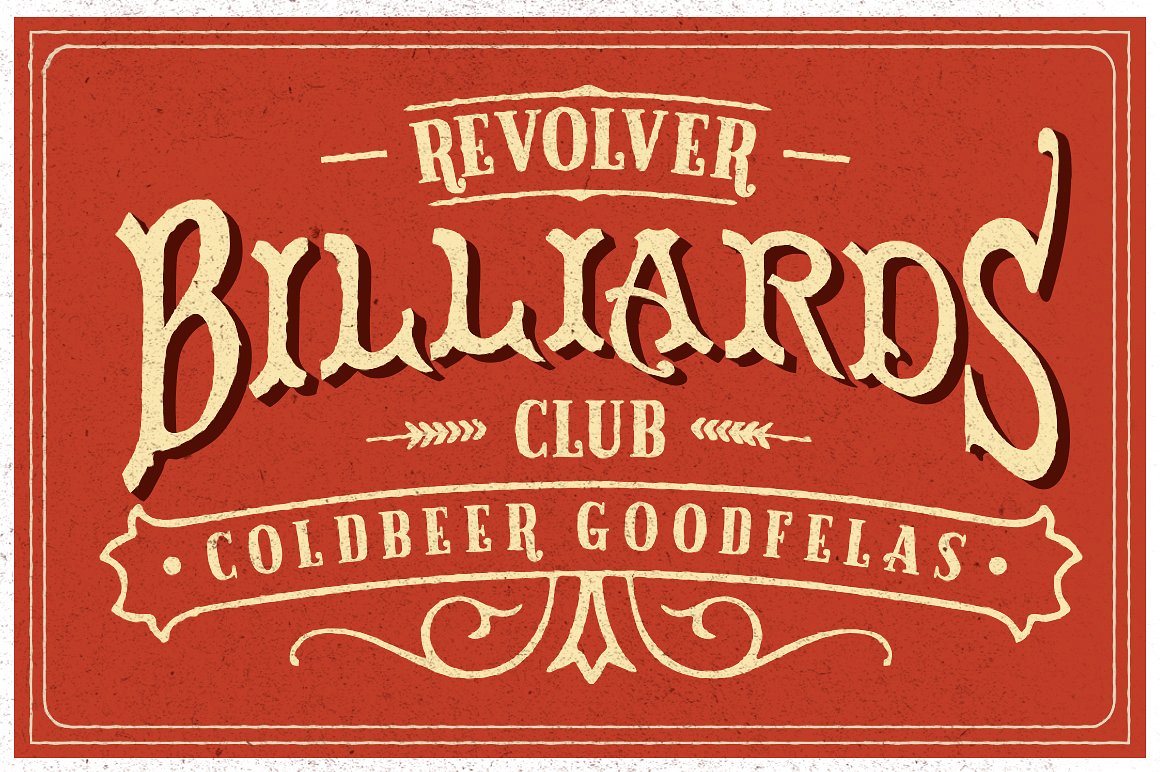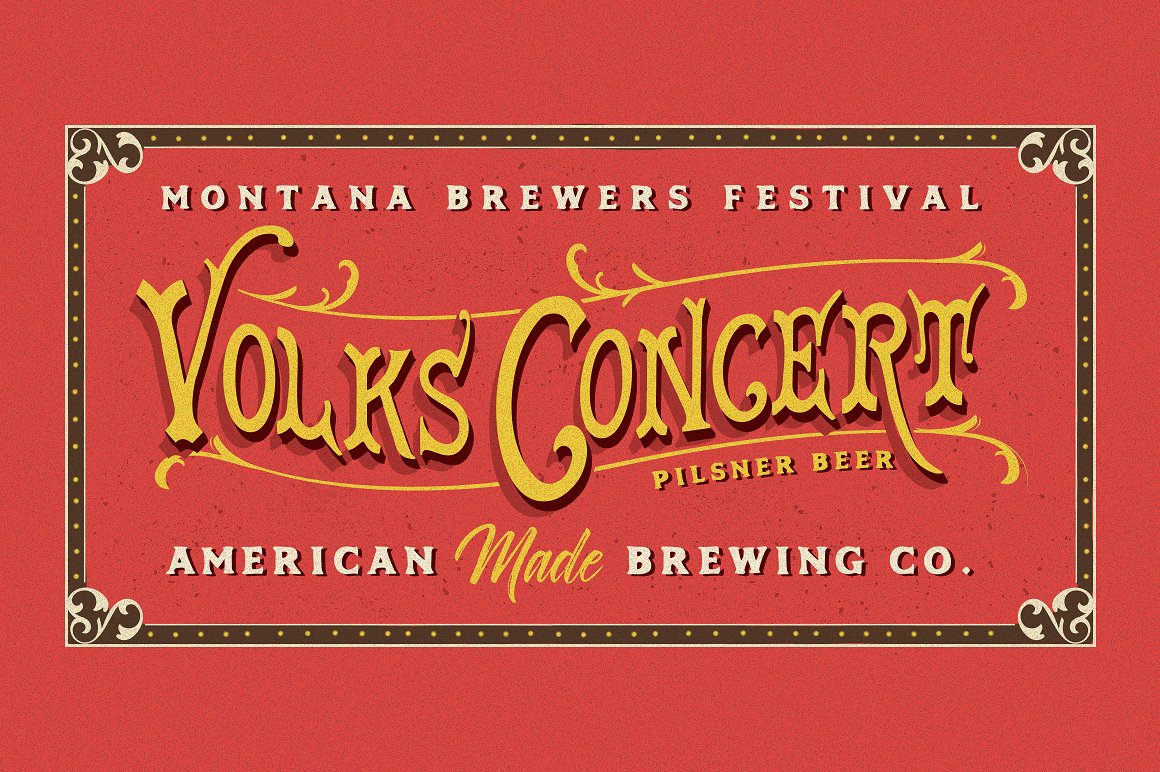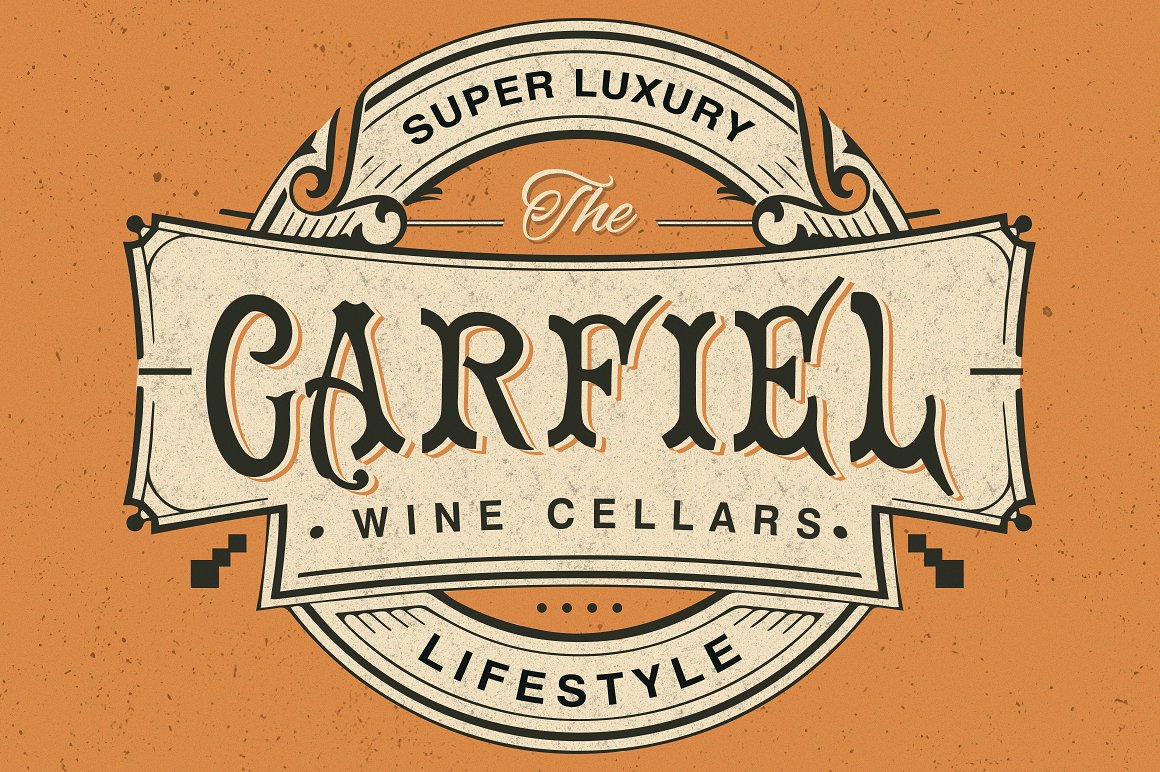
Introduction to Salvathore Font
Salvathore is an elegant Victorian font inspired by old school advertising companies of the 1800s.
It has a strong and stunning Victorian vibe, but with a bright, modern twist Use in all your creative projects for endlessly breathtaking typographic possibilities.